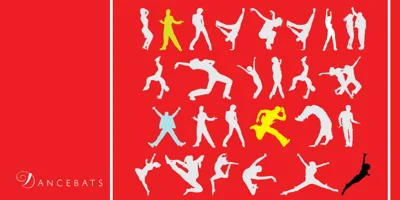
Dancebats Font
Dancebats Font is perfect for dance studio branding, party event invitations, music festival graphics, nightclub promotional materials, entertainment venue signage, and rhythmic movement-inspired design projects.
Dancebats Font is exciting because it captures the energetic rhythm and joyful movement of dance culture, delivering a dynamic symbol font that embodies musical expression, physical celebration, and the universal language of dance.
The Dancebats Font family includes rhythmic variations: dance figure symbols, musical note icons, movement pictographs, and celebratory decorative elements that enhance dance-themed communications with visual rhythm and energy.
Move to the beat with Dancebats Font, a rhythmically crafted symbol typeface that brings dance energy and musical celebration to your most dynamic entertainment design projects. This vibrant font excels in creating memorable visual communications for dance academies, music venues, party planners, and entertainment companies that celebrate the joy of movement and the universal appeal of dance as artistic expression. The dynamically designed symbols feature fluid movement representations and rhythmic pictographs that communicate energy, celebration, and artistic movement while providing instant visual recognition across all dance and music applications. Perfect for dance competition materials, music event promotions, party invitation designs, and entertainment venue decorations that need to convey rhythm and celebration without words, this font connects with audiences who live for music and movement. Each symbol pulses with danceable energy, making every visual communication feel like an invitation to join the celebration and express joy through movement. Dancebats Font transforms ordinary design communications into rhythmic celebrations that inspire audiences to embrace the joy of dance while creating memorable experiences that bring communities together through shared musical expression and physical celebration.